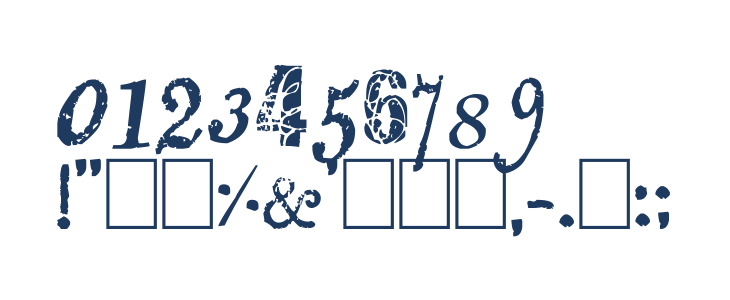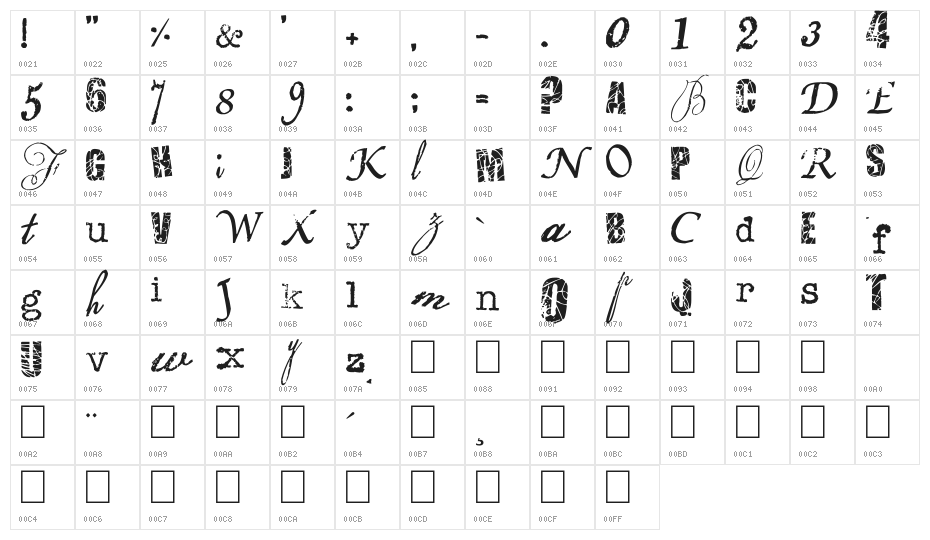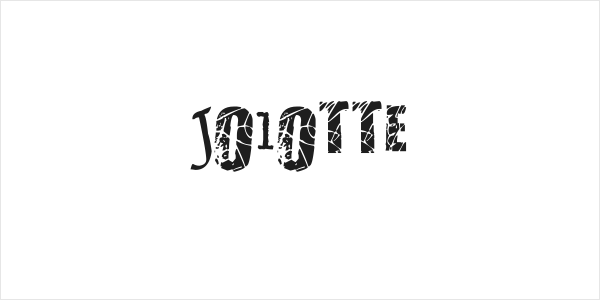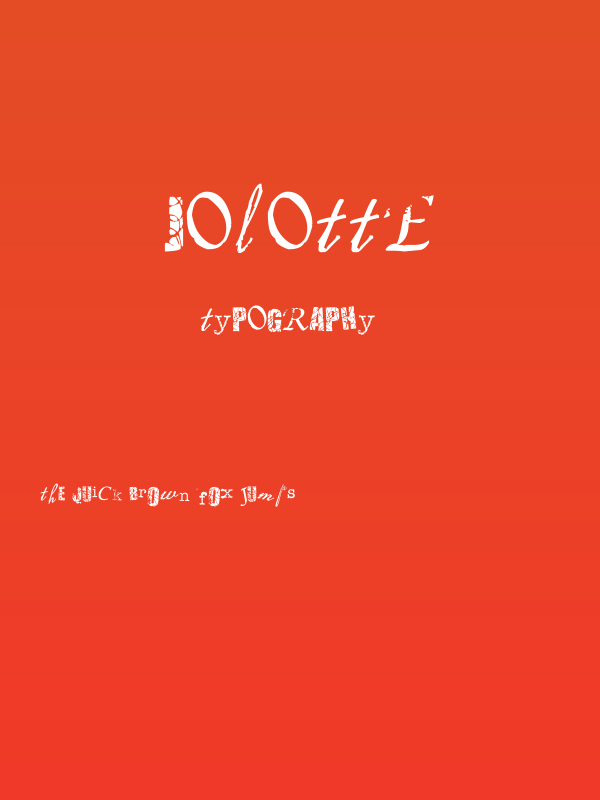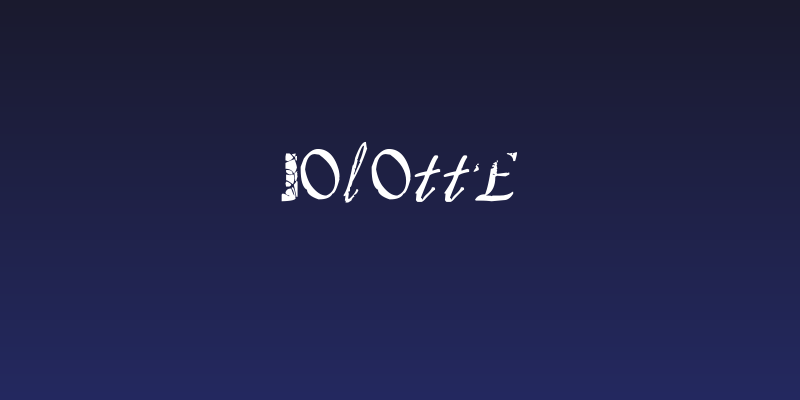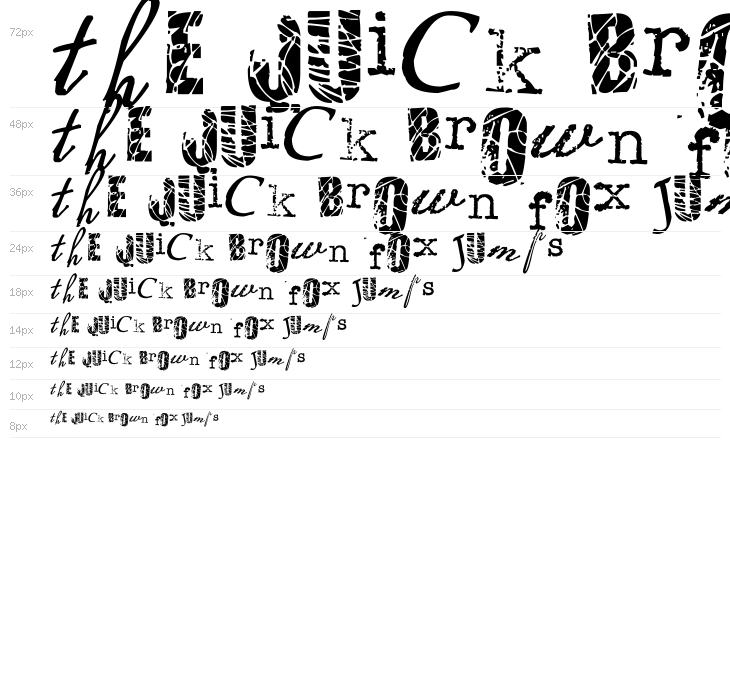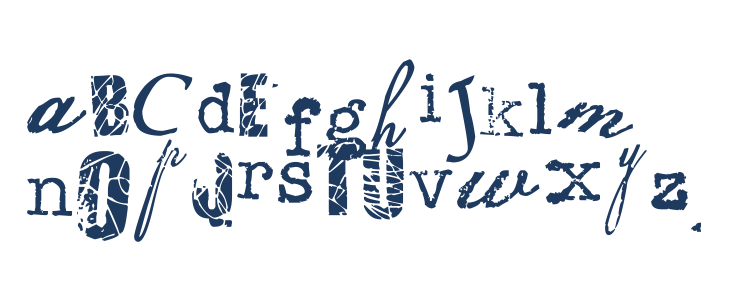
jolotte Font
jolotte Description
This font features a unique and eclectic mix of styles, combining elements of distressed textures with both serif and script characteristics. The uppercase letters exhibit a bold, rugged appearance with varying degrees of texture, giving them a worn, vintage feel. The lowercase letters continue this theme, with some characters adopting a more cursive style, adding a touch of elegance to the overall design. Numbers and special characters are similarly styled, maintaining the distressed, textured look. This font's diverse range of styles makes it particularly eye-catching and suitable for creative projects.
| Overall Style | Vintage, Artistic |
| Proposed Projects | Ideal for posters, album covers, branding, and any project needing a bold, artistic touch. |